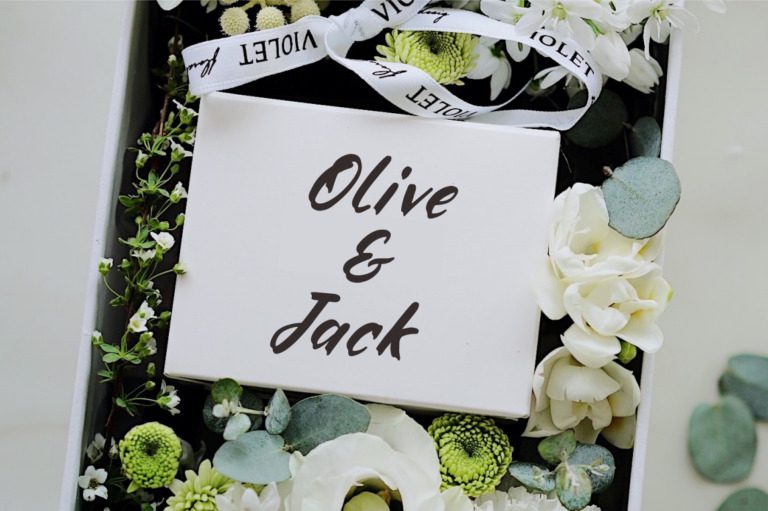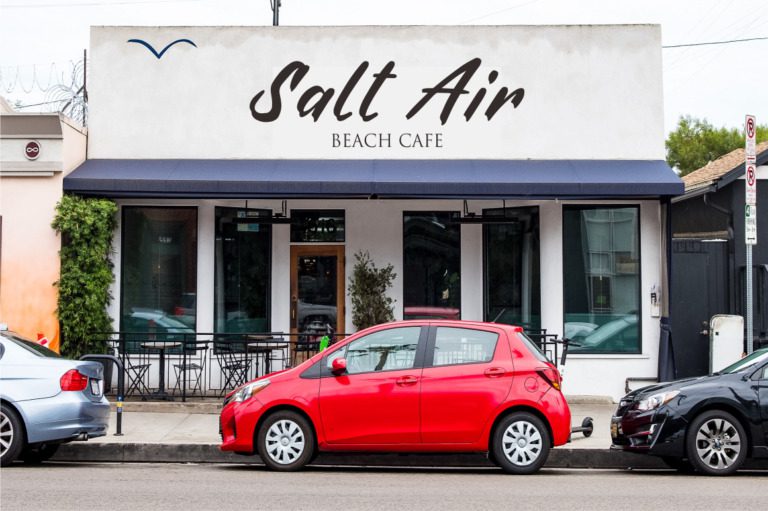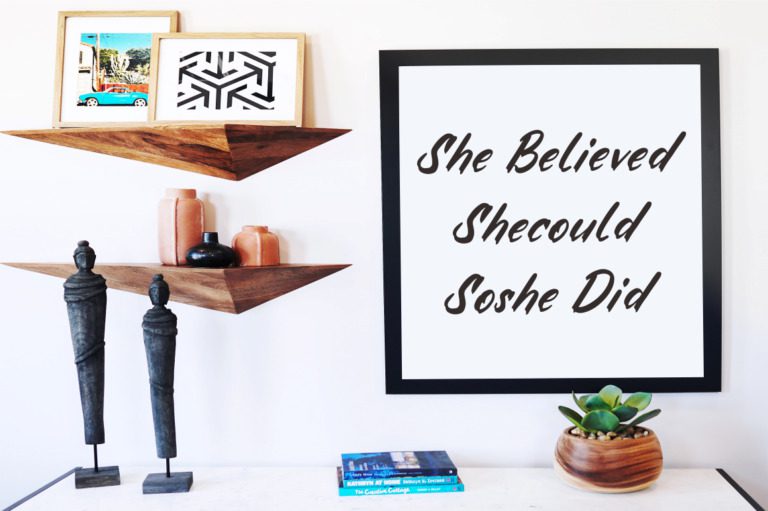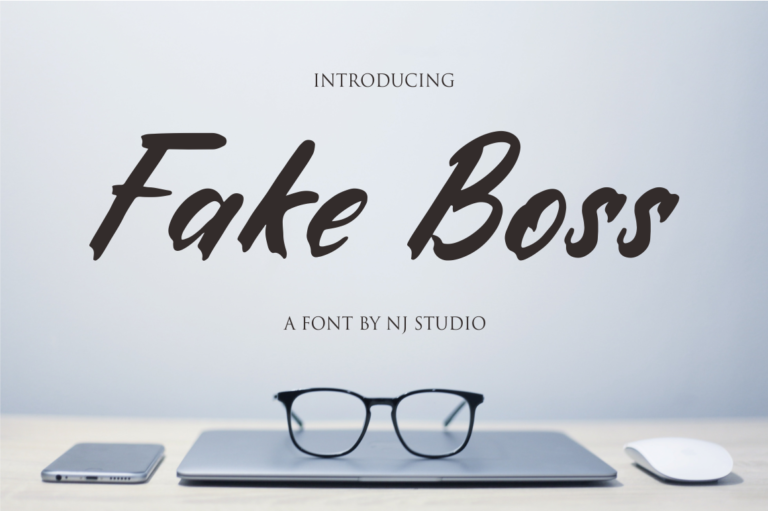
Fake Boss Font
Fake Boss is a modern and playful handwritten font with a cute twist. Its casual and informal style adds a touch of authenticity to any design project. Perfect for branding, social media graphics, invitations, and more, Fake Boss is a versatile font that can be used to create eye-catching and memorable designs.